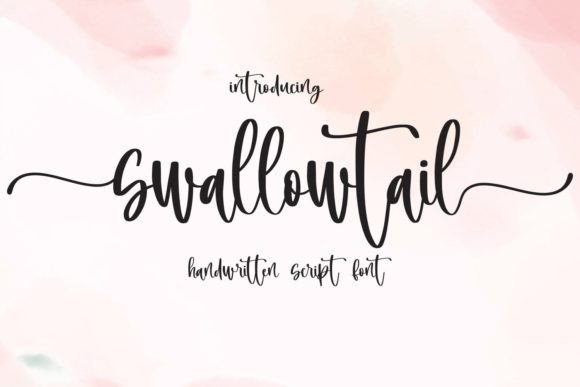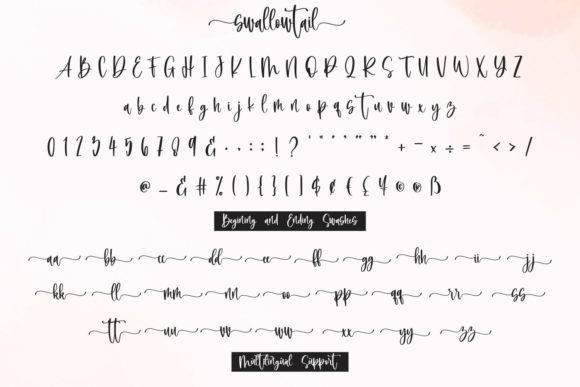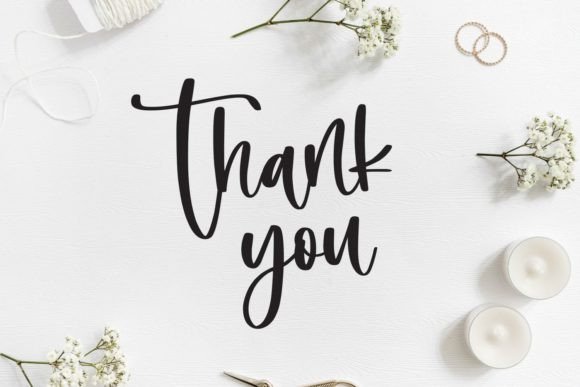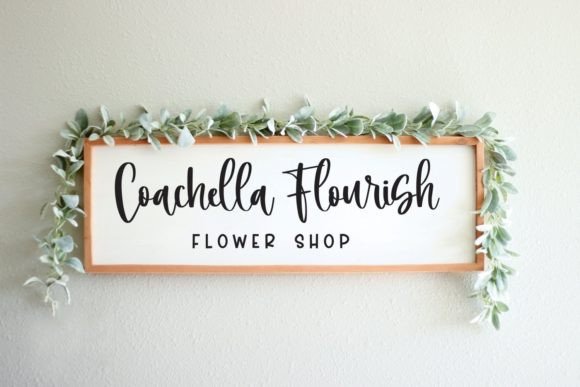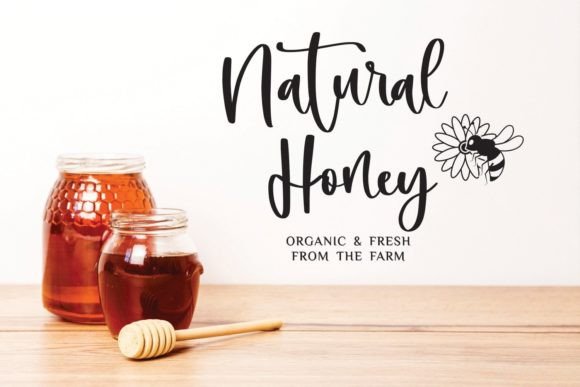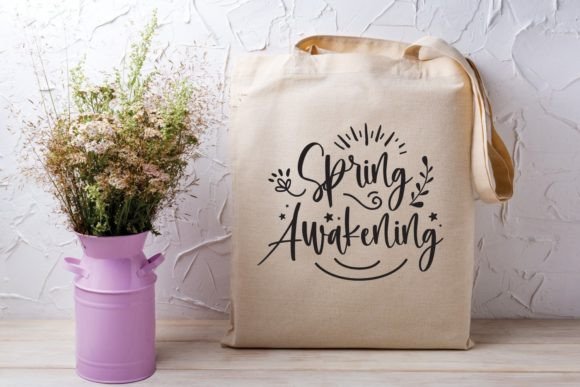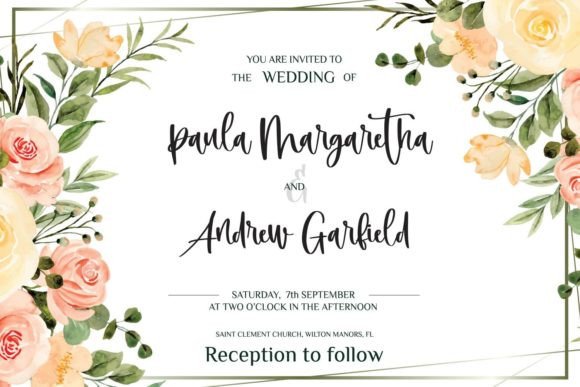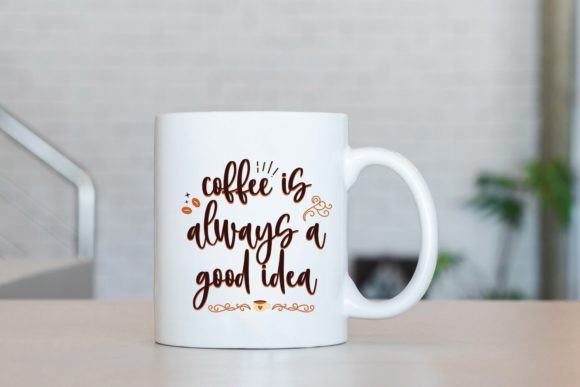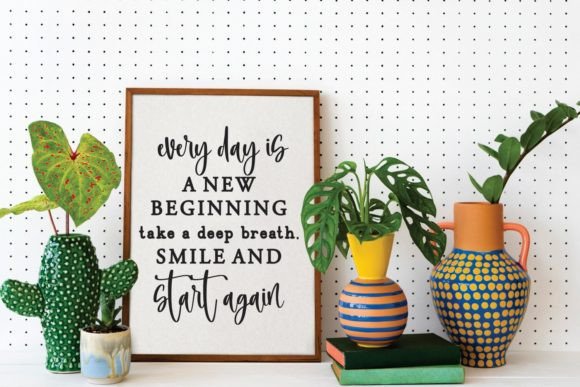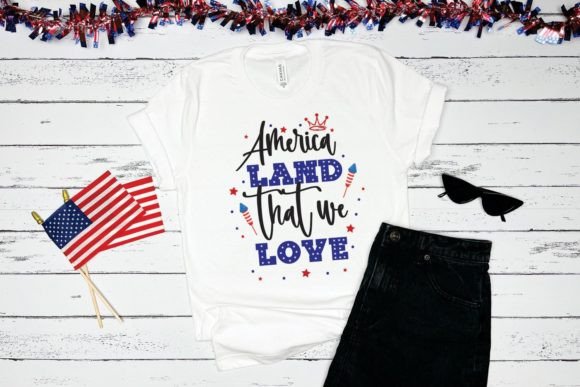
Swallowtail Font
About Swallowtail Font
“Swallowtail” is a charming and natural handwritten font that exudes a quirky and playful vibe. Its unique and organic style makes it a perfect choice for a wide range of creative projects, including crafting, branding, wedding invitations, blogs, logos, frames, business materials, book covers, stationery, marketing materials, magazines, and much more. This font’s versatility knows no bounds, making it a fantastic option for various design applications.
The font’s quirky and natural handwritten appearance adds character and personality to your designs, making them visually engaging and distinctive. Whether you’re working on a whimsical wedding invitation, a creative logo, or a captivating blog header, “Swallowtail” brings a sense of charm and creativity to your projects.
One of the notable features of “Swallowtail” is its PUA encoding, allowing easy access to all glyphs and swashes. This feature enhances your creative freedom, enabling you to customize your designs with a variety of decorative elements and artistic flourishes. With a wide array of glyphs and swashes at your disposal, you can create unique and eye-catching designs tailored to your specific needs.
By embracing the quirky and natural style of “Swallowtail,” you’re infusing your designs with a touch of whimsy and creativity. Its handwritten charm adds warmth and approachability, making your projects stand out and resonate with your audience. Whether you’re a designer, a craft enthusiast, or an individual working on personal projects, “Swallowtail” provides you with an incredibly versatile font to create spectacular and memorable designs that capture the essence of your creativity.